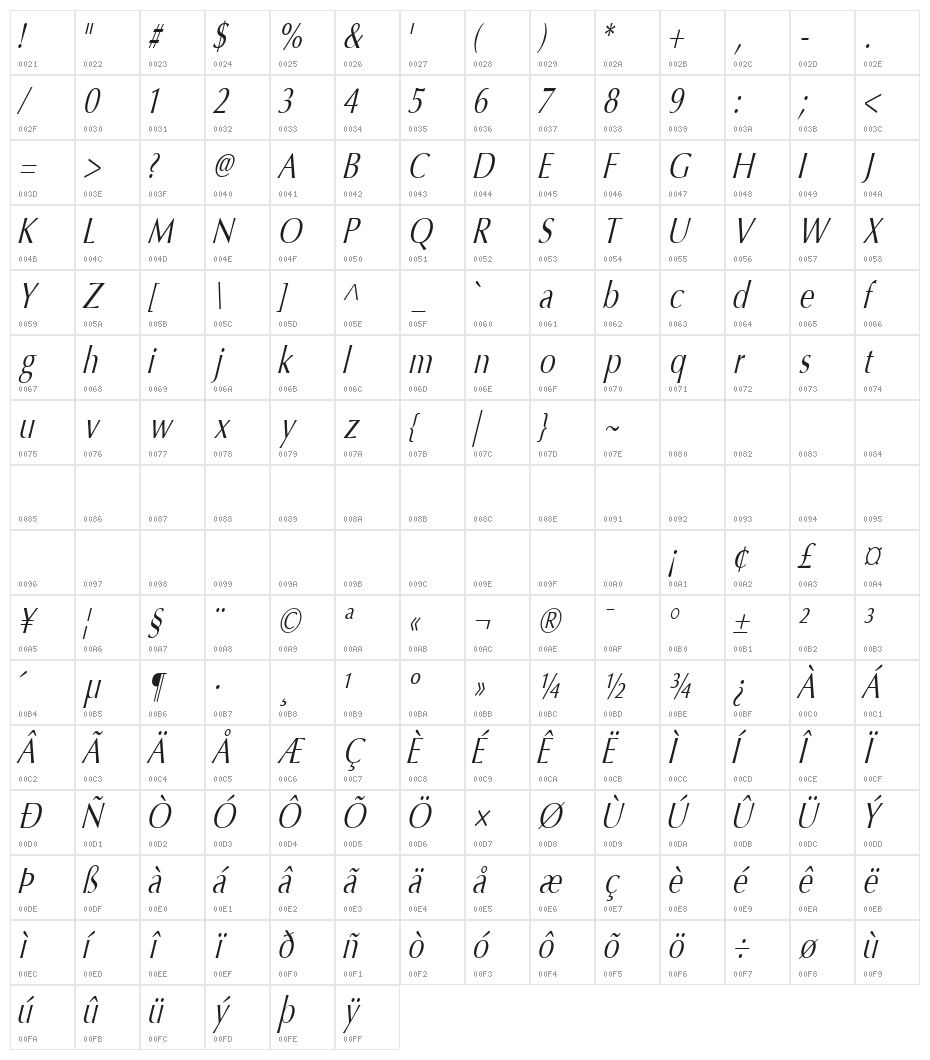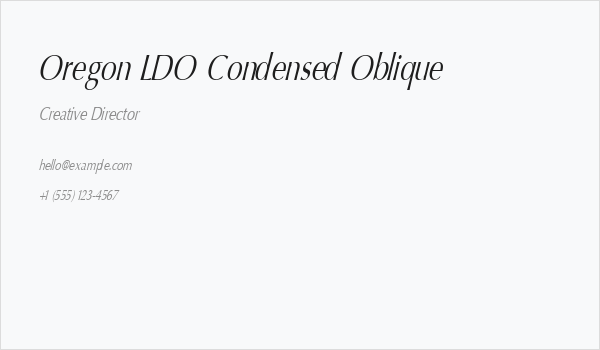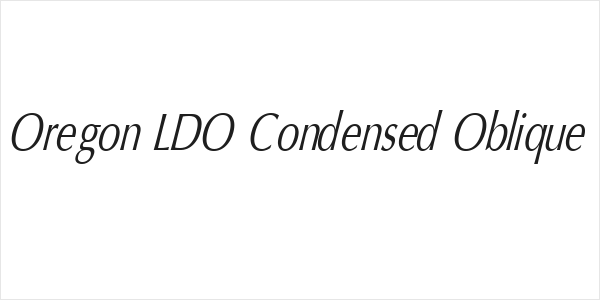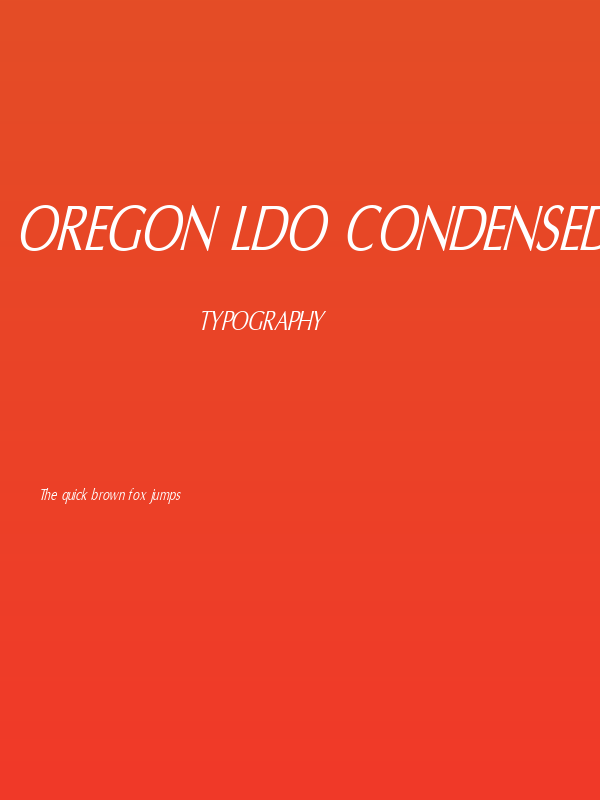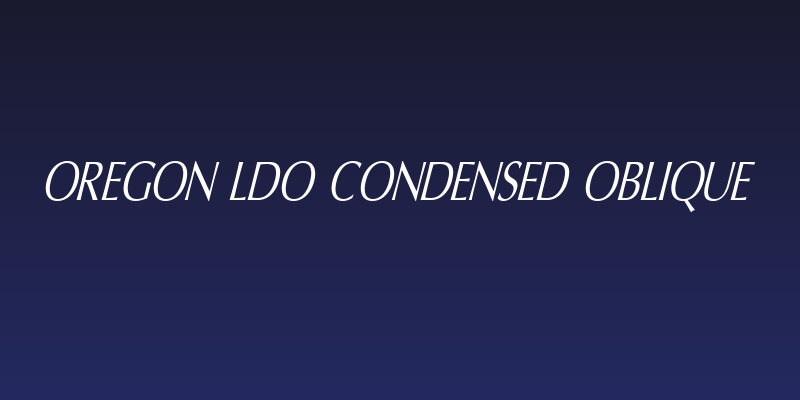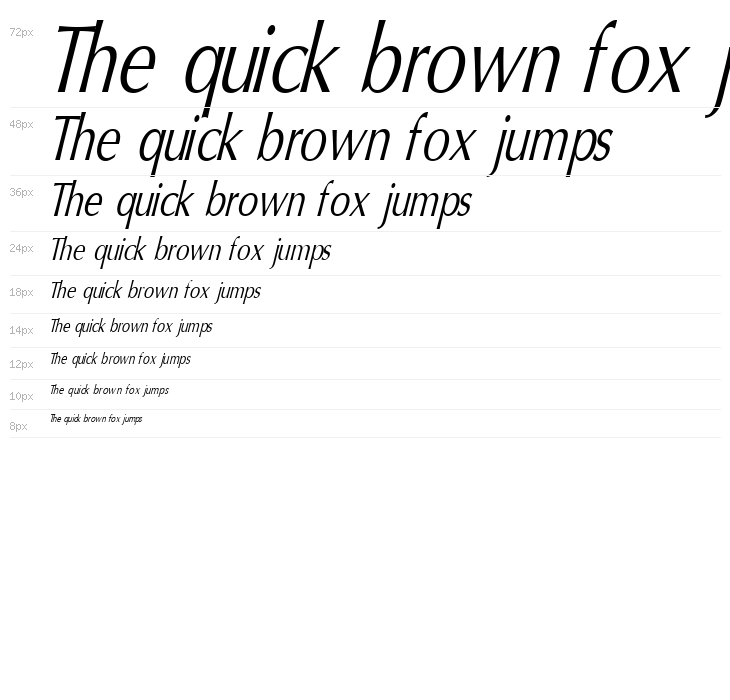
Oregon LDO Condensed Oblique Font
Oregon LDO Condensed Oblique Description
This font features a sleek, condensed design with an oblique slant, giving it a dynamic and modern appearance. The characters are elegantly elongated, contributing to a sense of movement and fluidity. The strokes are consistent in thickness, providing a uniform look across all characters. The uppercase and lowercase letters maintain a harmonious balance, while the numerals and special characters are crafted with precision. This font's condensed nature makes it ideal for space-saving applications without sacrificing readability.
| Use Case | Headlines, Logos, Editorial design |
| Proposed Projects | Ideal for branding, advertising, and editorial design where a modern and space-efficient typeface is needed. |